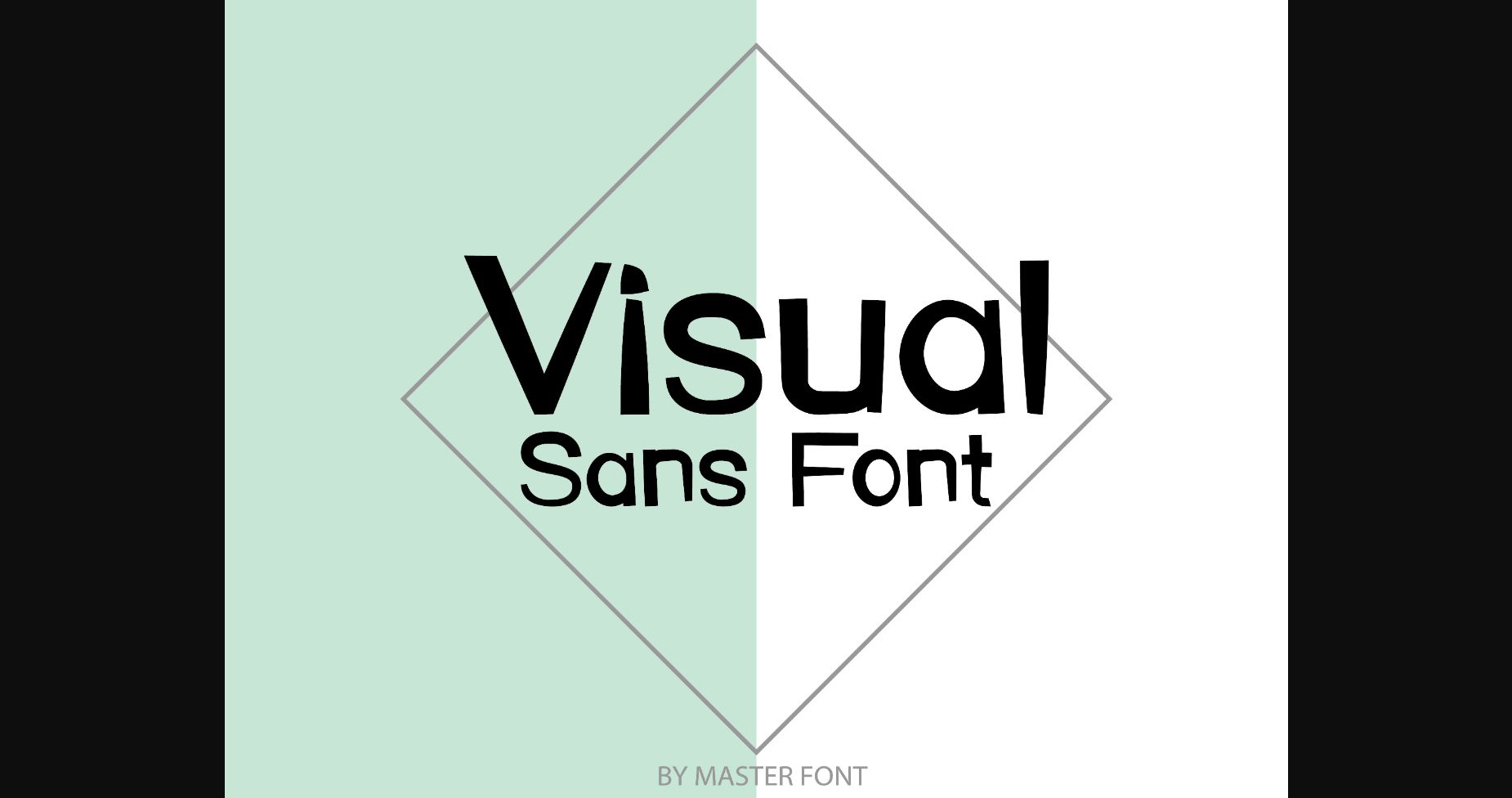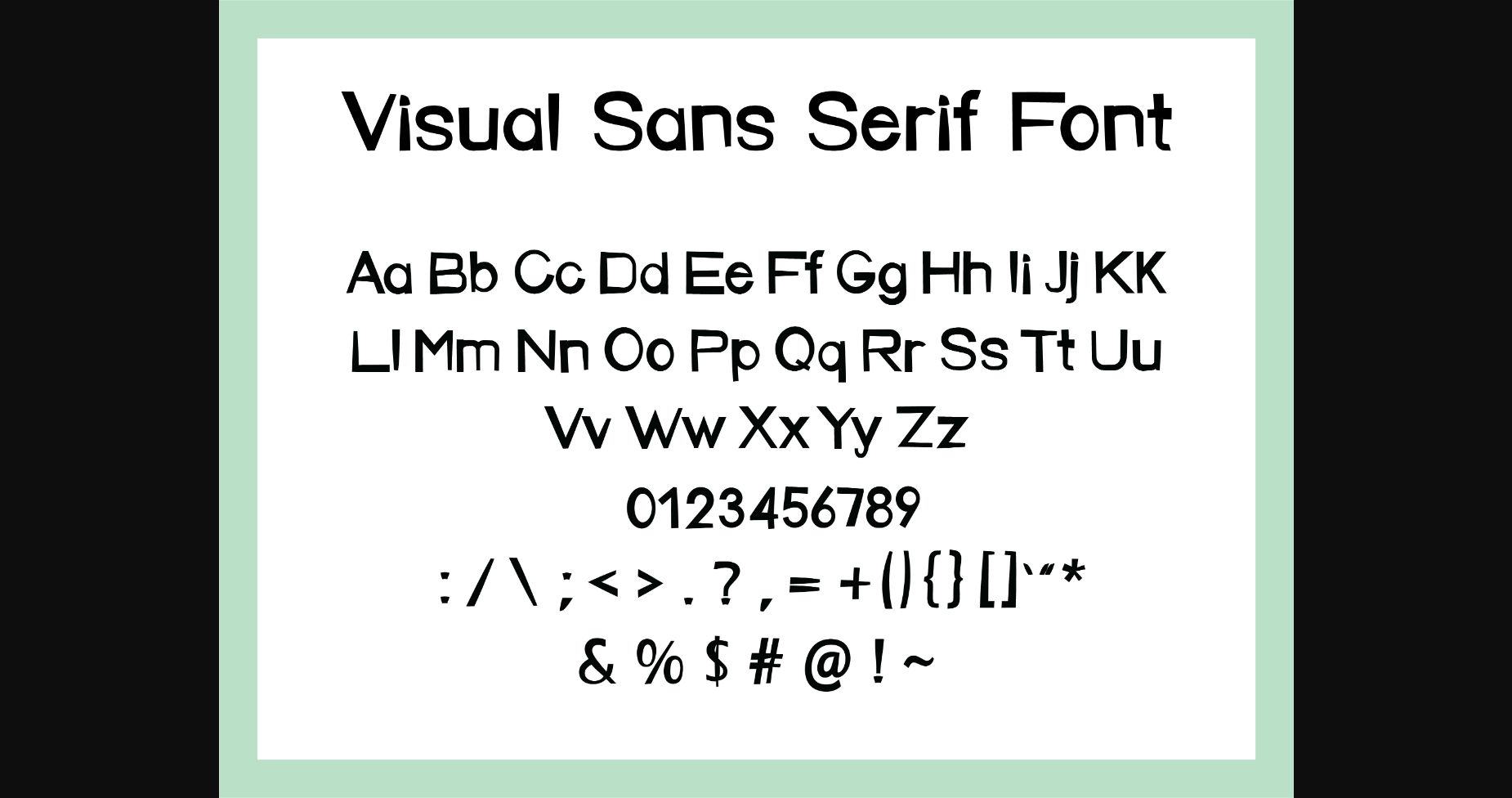
About Visual Font
Visual is a modern and clean sans serif font. It can easily be matched to an incredibly large set of projects, so add it to your creative ideas and notice how it makes them stand out!